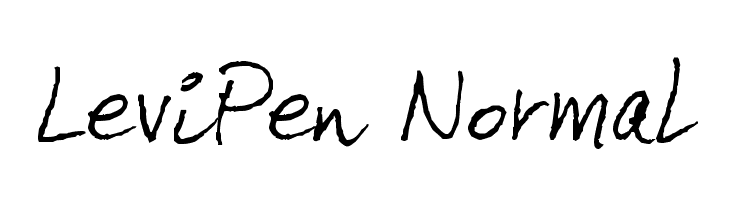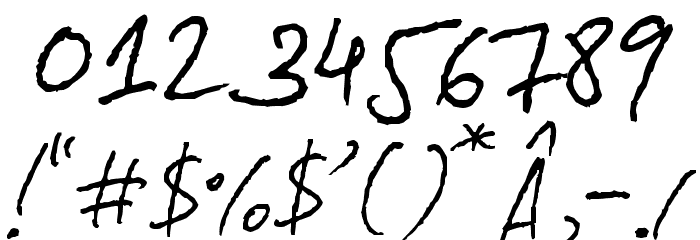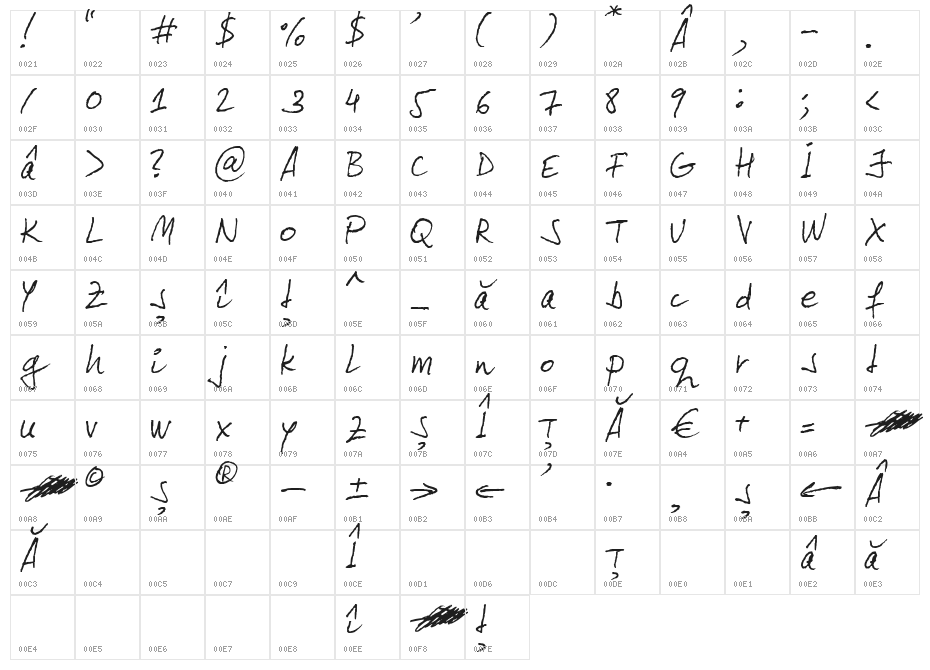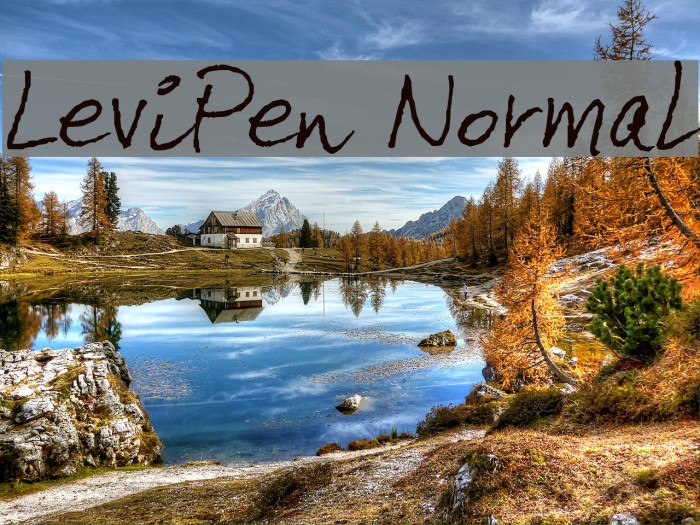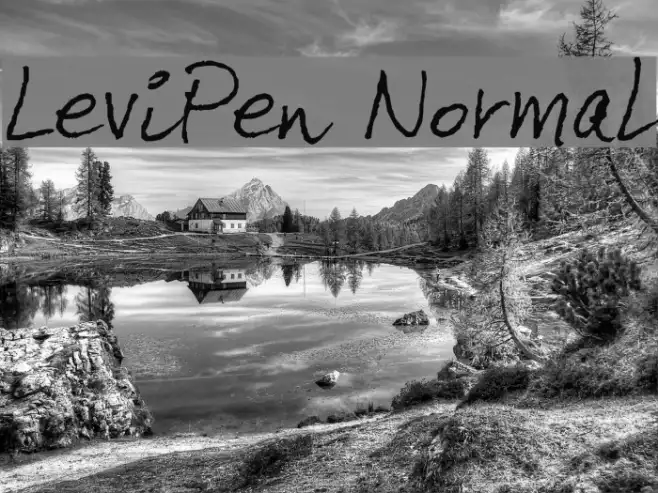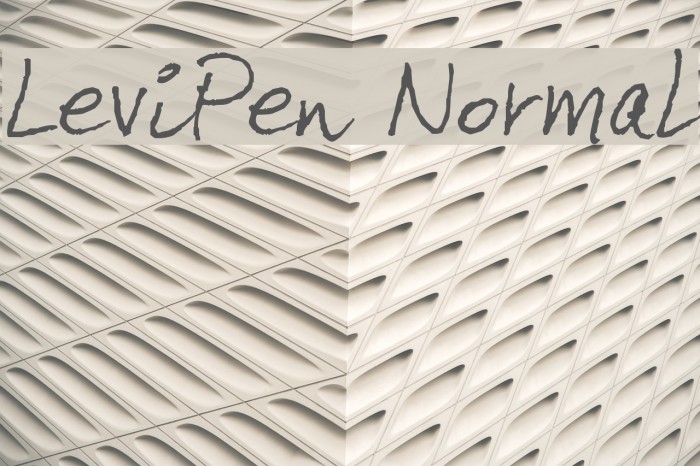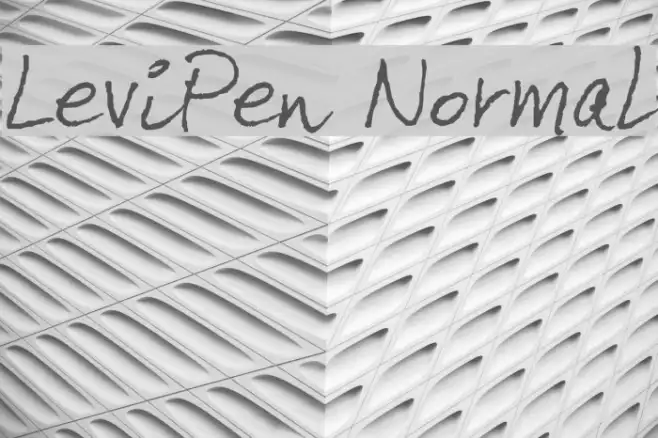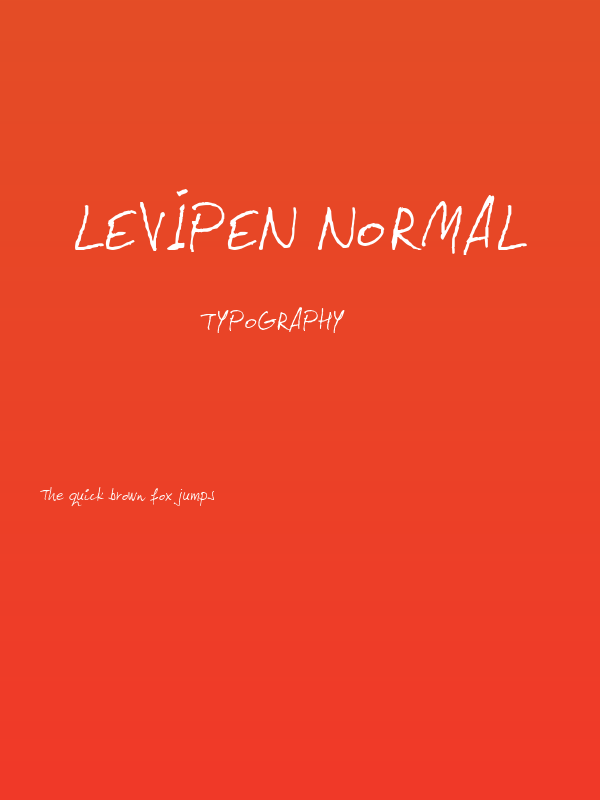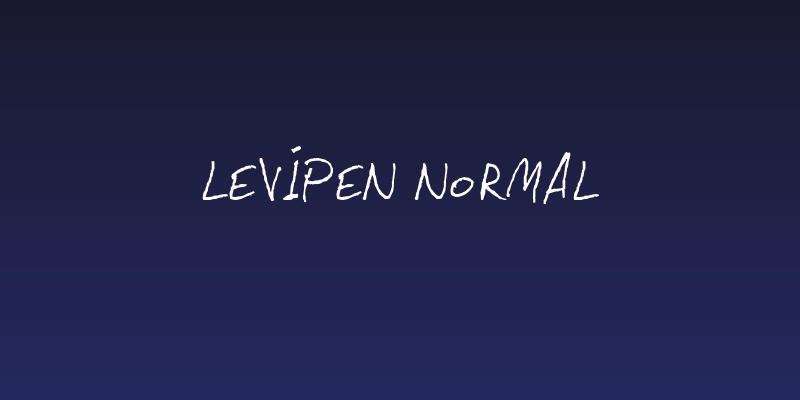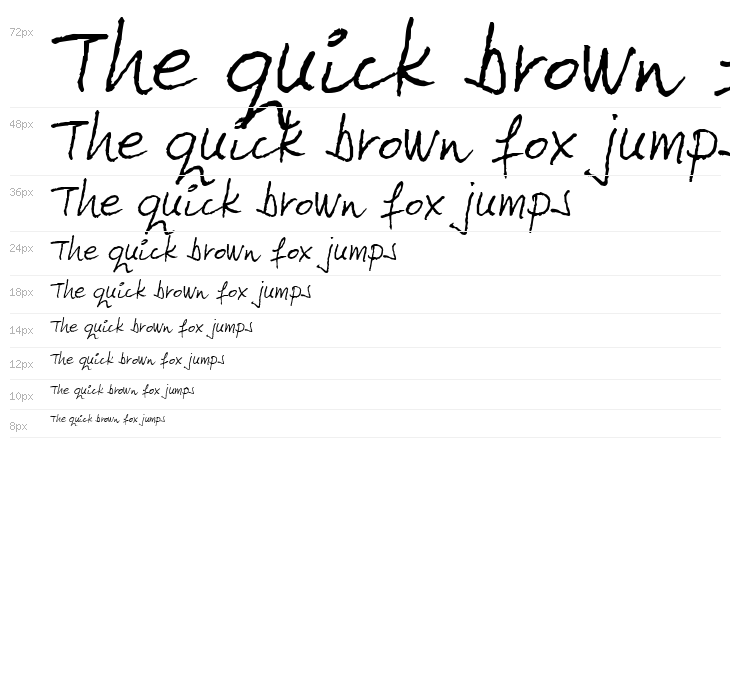
LeviPen Normal Font
LeviPen Normal Description
This font exhibits a casual, handwritten style with a natural flow and organic feel. The letters are slightly slanted, giving a sense of movement and dynamism. The strokes vary in thickness, adding a personal touch reminiscent of penmanship. The uppercase and lowercase letters maintain a consistent style, while the numerals and special characters integrate seamlessly. The overall appearance is informal yet legible, making it suitable for projects that require a personal or creative touch.